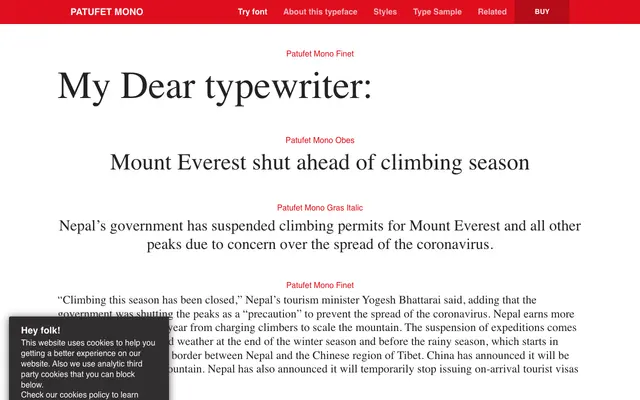
Patufet Mono
Typerepublic · Andreu Balius and Ricard Garcia · 2020
A monospaced typeface with a typewriter character, designed by Andreu Balius and Ricard Garcia and named after a tiny hero from Catalan folk tradition.
Five weights from UltraLight (Finet) to an unlabelled heaviest (Obes), each with matching italics, give the family a practical range for editorial and UI work. The design draws on Catalan folktale character Patufet to inform its unpretentious Roman forms, with heavier weights picking up a slightly naïve, rustic quality. OpenType features include oldstyle figures, fractions, slashed zero and case-sensitive forms.
A fixed-pitch monospaced typeface explicitly designed to evoke the feel of a typewriter, with a simple Roman structure and weight variations named in Catalan.